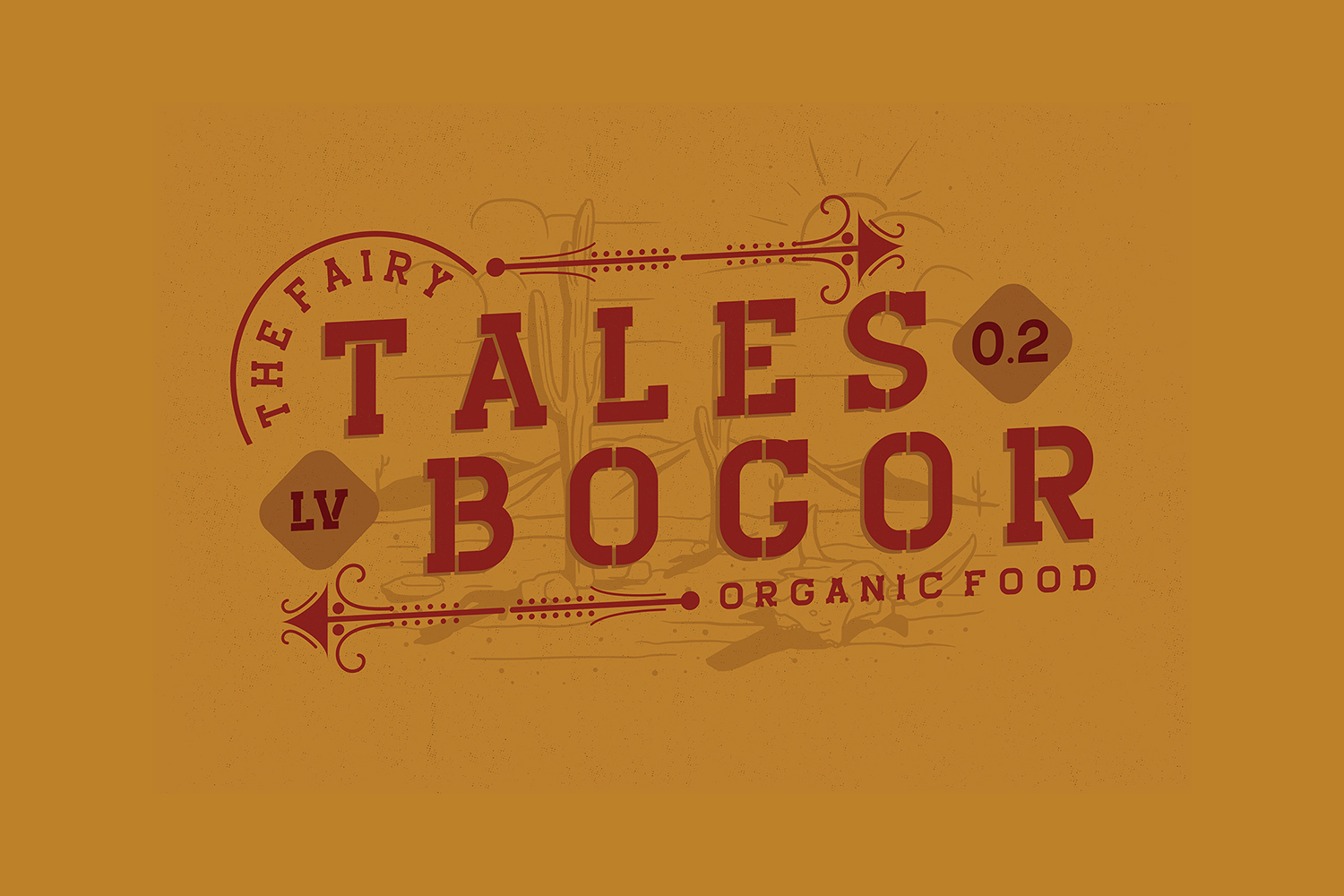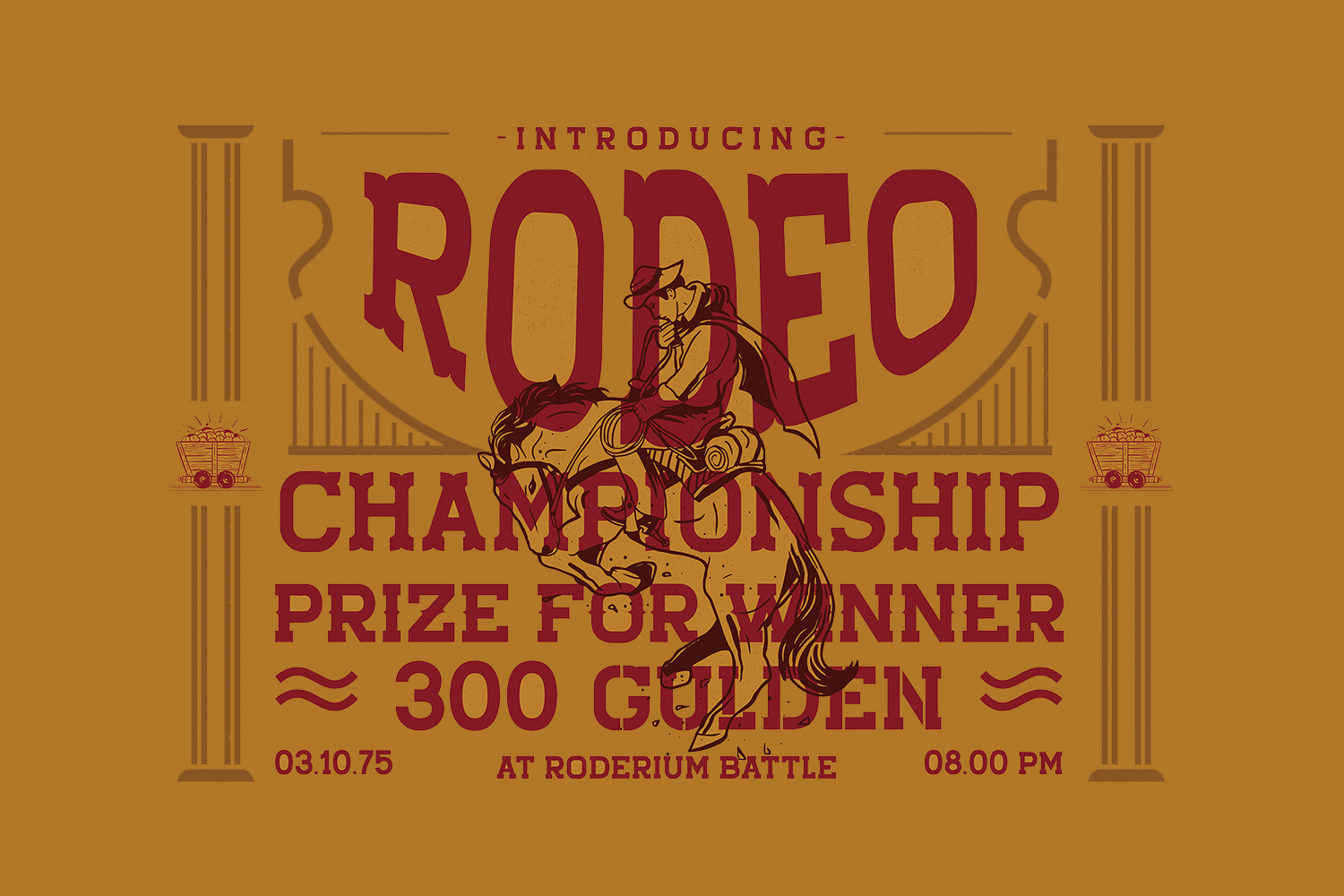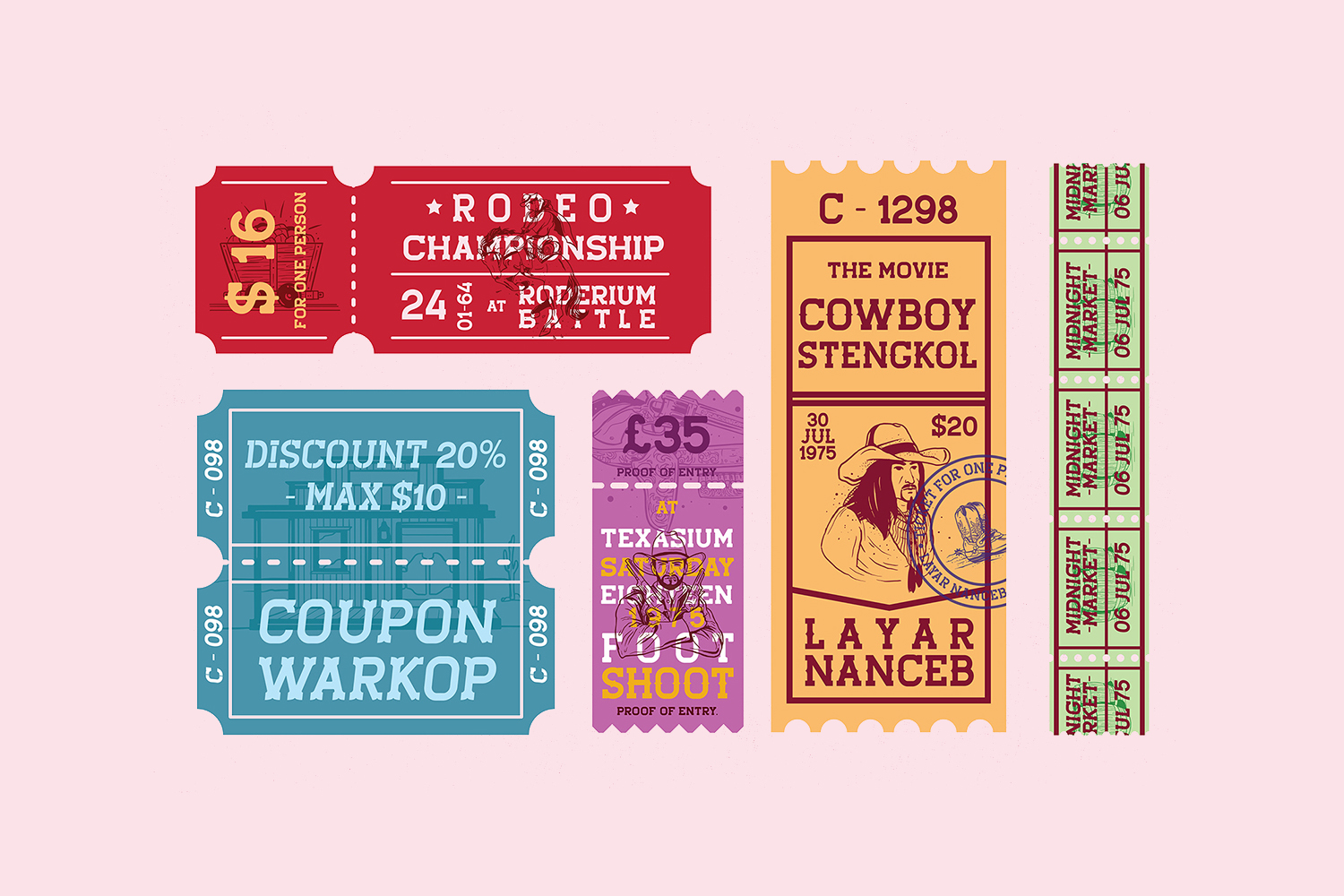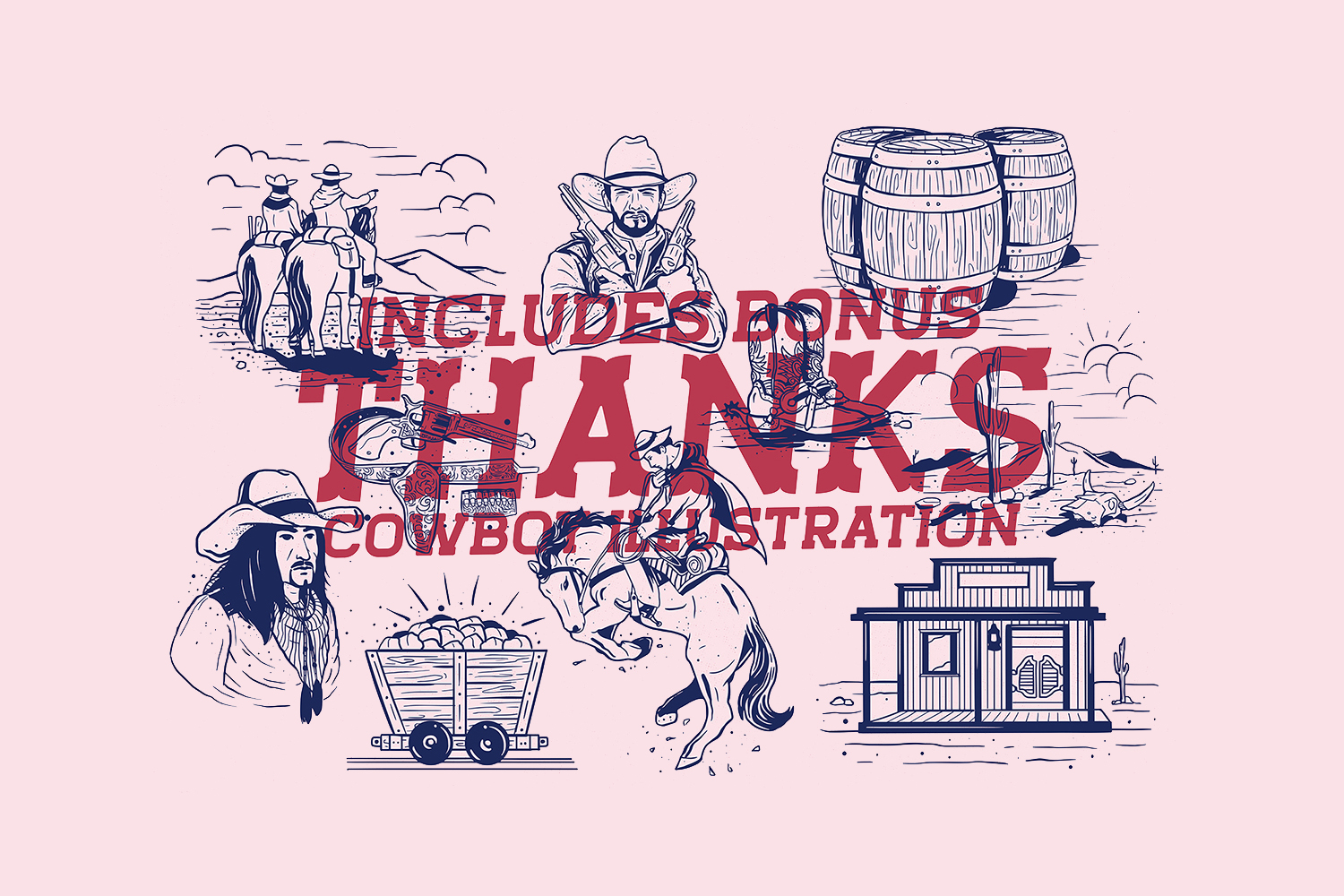
Stengkol Free Font
Stengkol Free Font includes a bonus illustration of cowboy themes. Slab serif with various font styles with layered fonts. It’s easy to use various fonts in one design and combined with cowboy illustrations. This free typeface was designed by the talented Viaction Type Co. If you like it don’t forget to check out the full version.